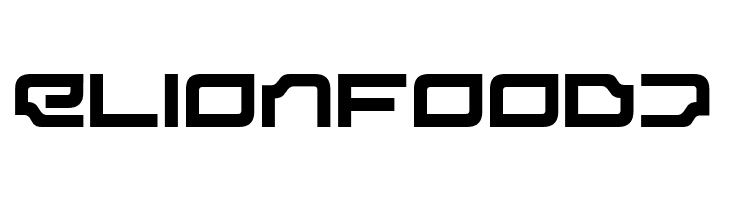
A futuristic, geometric font with bold, angular characters.
( Fonts by Klaus Johansen - www.listemageren.dK )
A playful font styled like domino tiles with dots forming characters.
( Fonts by Klaus Johansen - www.listemageren.dK )
A playful, domino-themed font with bold, italicized letters.
( Fonts by Klaus Johansen - www.listemageren.dK )
A playful domino-themed font with bold outlines and a dynamic, tilted orientation.
( Fonts by Klaus Johansen - www.listemageren.dK )
A playful font inspired by domino tiles, featuring letters formed by dot patterns.
( Fonts by Klaus Johansen - www.listemageren.dK )
A bold, decorative font styled as domino tiles with playful dot patterns.